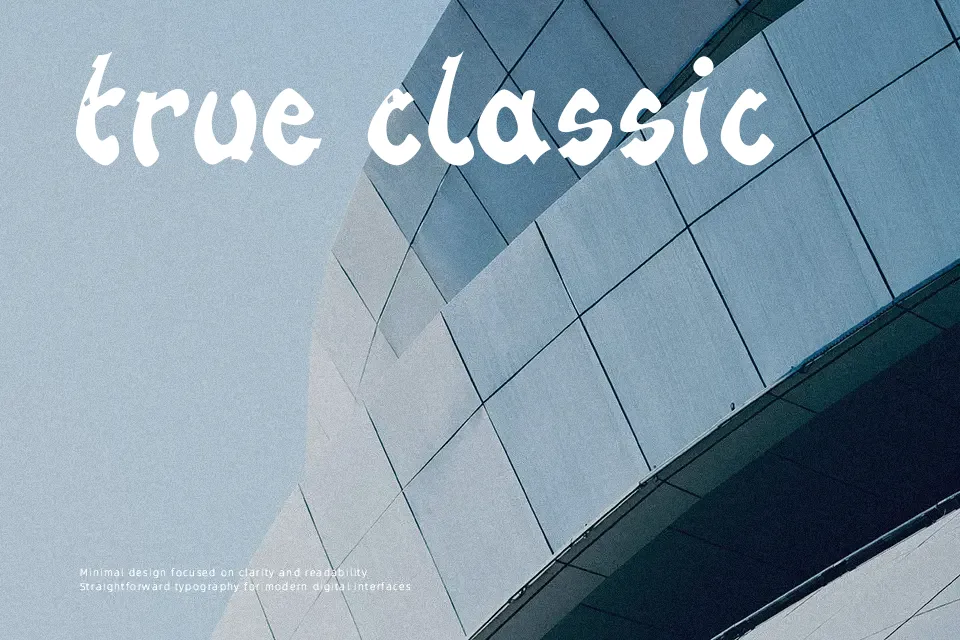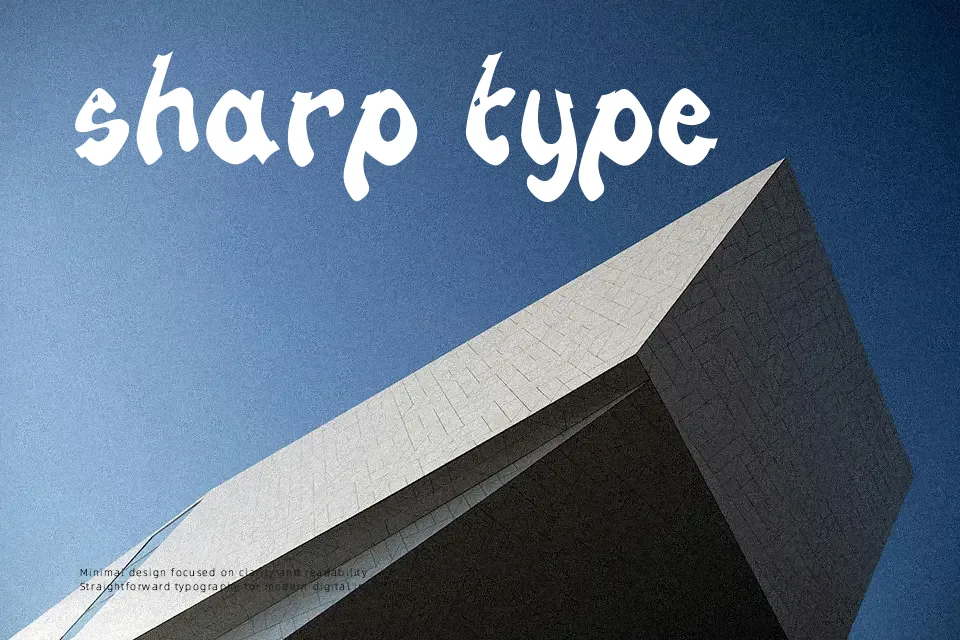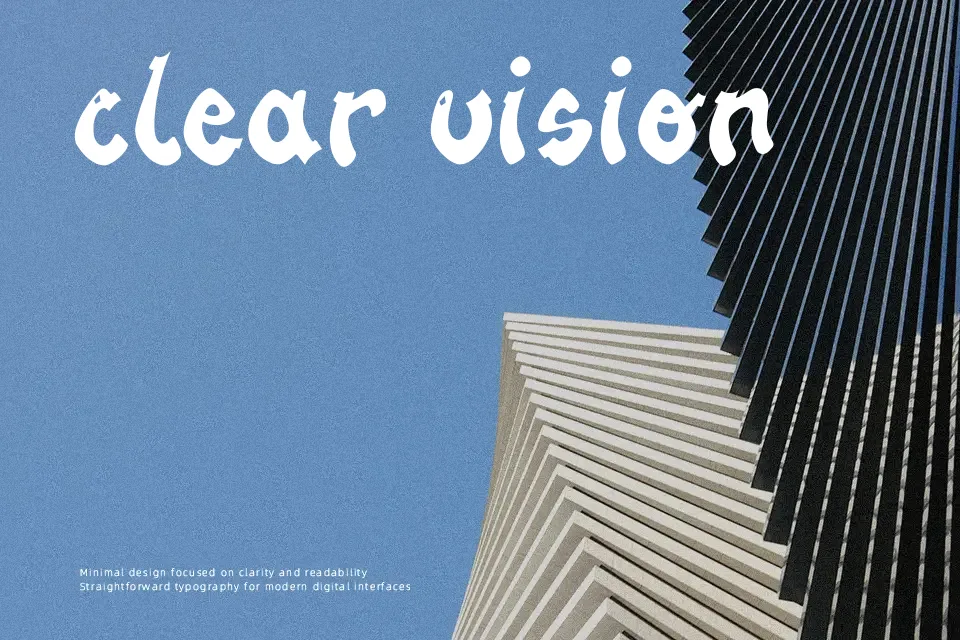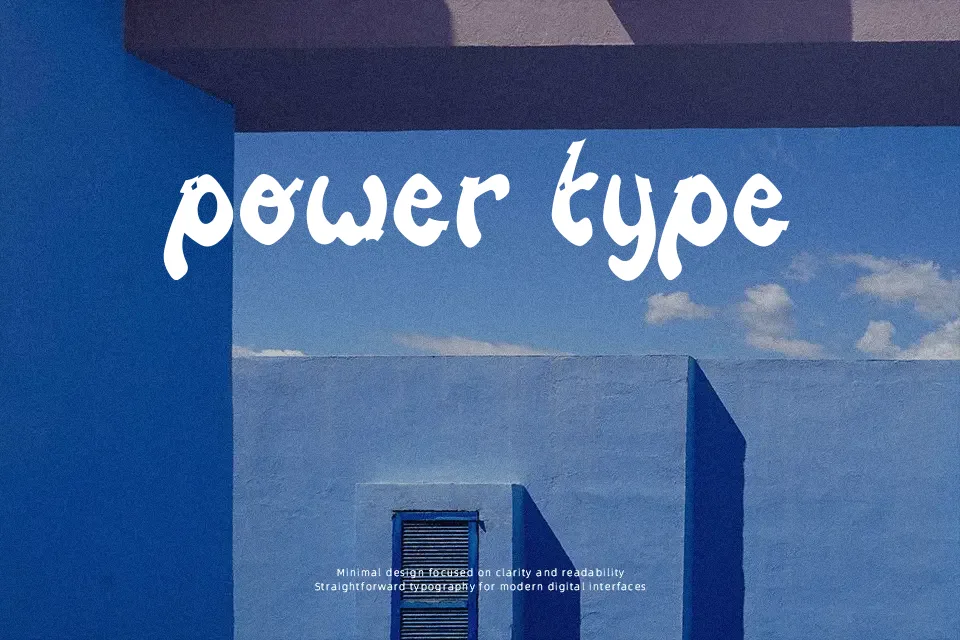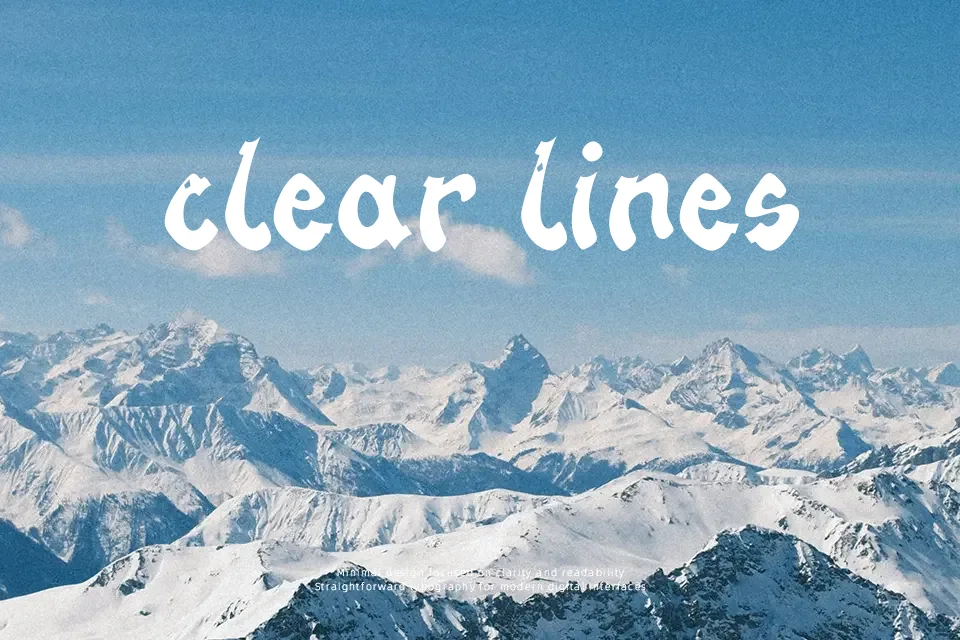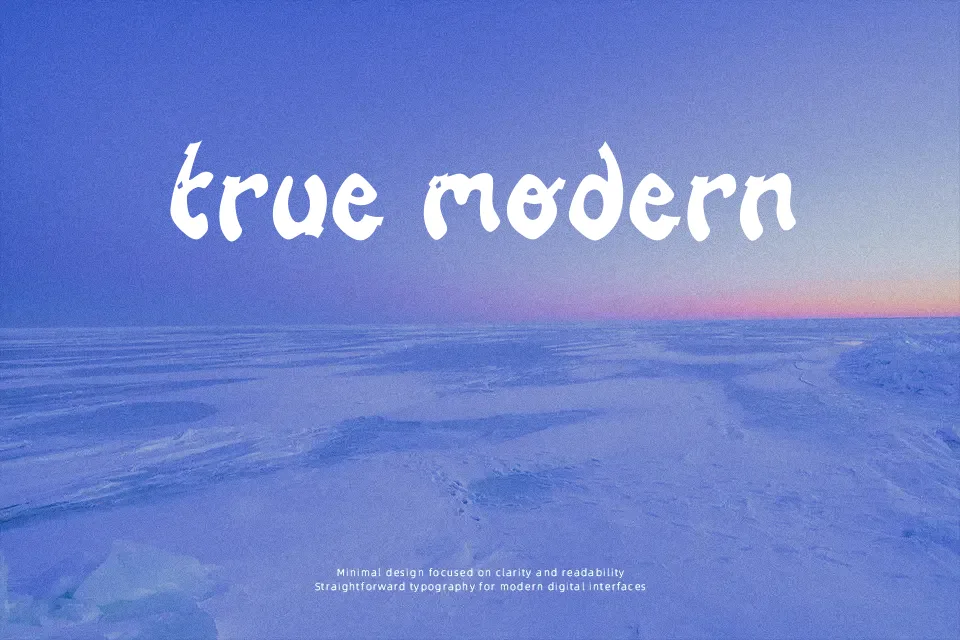
Baby Font
Baby Font leans into soft curves, loose spacing, and irregular strokes that mimic casual handwriting, giving every word a light, homemade feel. Its decorative shapes make it read as informal and slightly whimsical rather than clean or professional. This works well on birthday cards, baby shower signage, classroom posters, or social media graphics aimed at parents and children. In longer text blocks, the quirky outlines and uneven rhythm quickly become tiring to read, so it fits headlines and short phrases more than body copy. Designers who need strict alignment or a corporate voice will likely find it too naive for brand systems or serious documents.
kids party invitations
nursery wall prints
playful social media posts
handmade product labels
corporate branding systems
formal editorial layouts
user interface text
Perfect for kids, logo, and packaging, with a cute and decorative style.